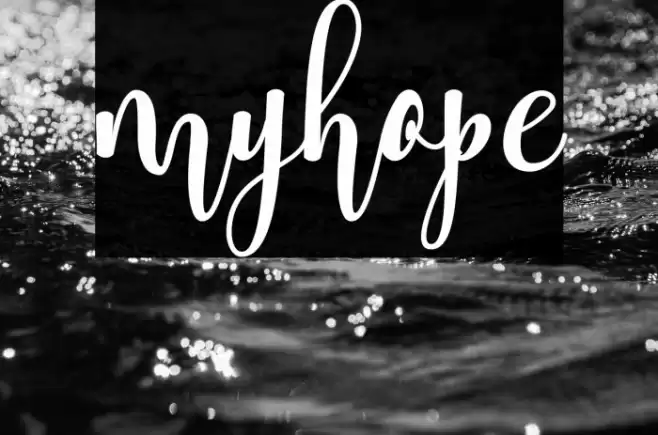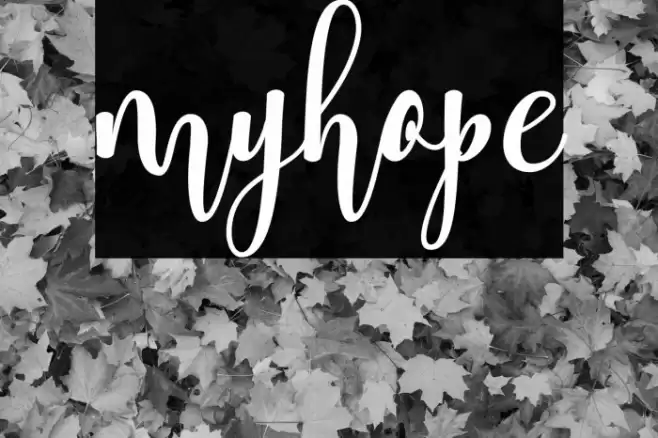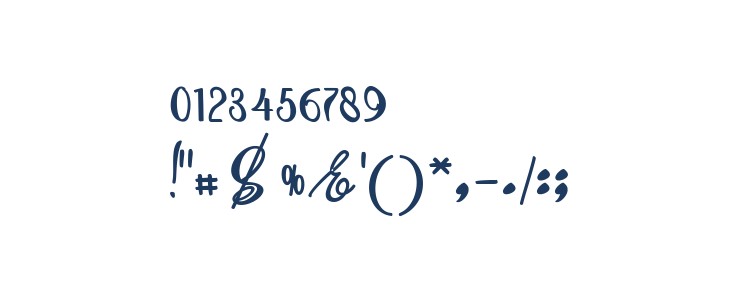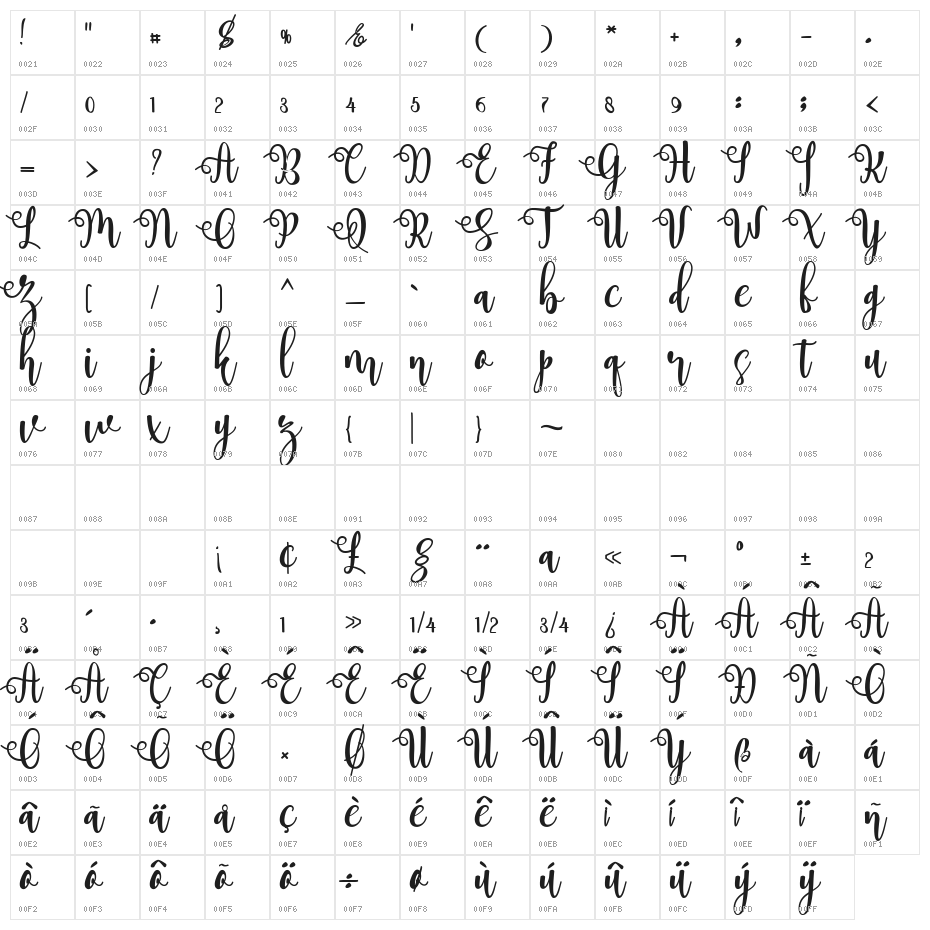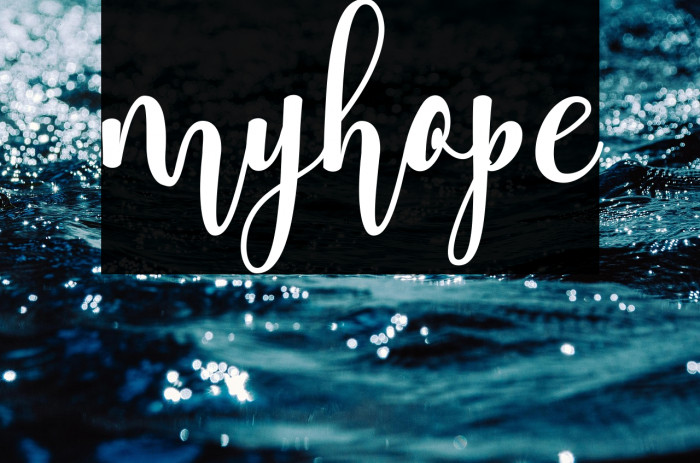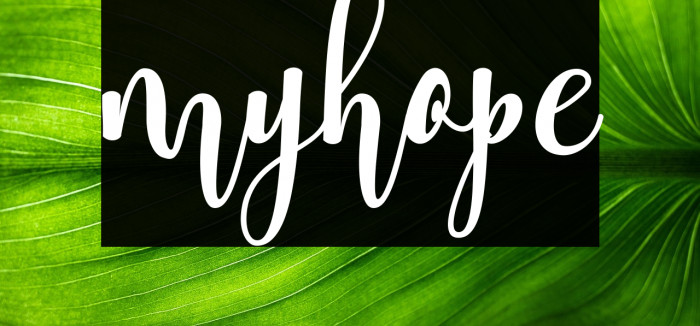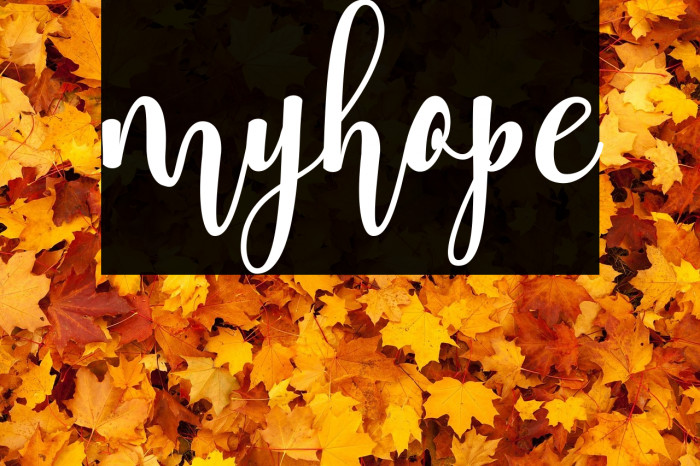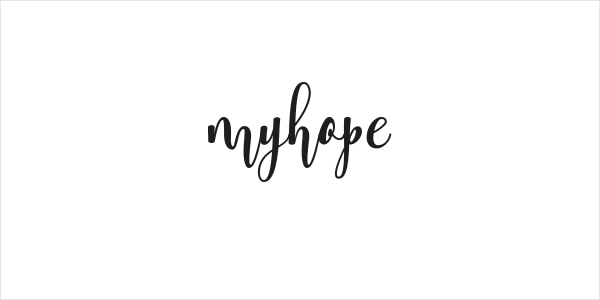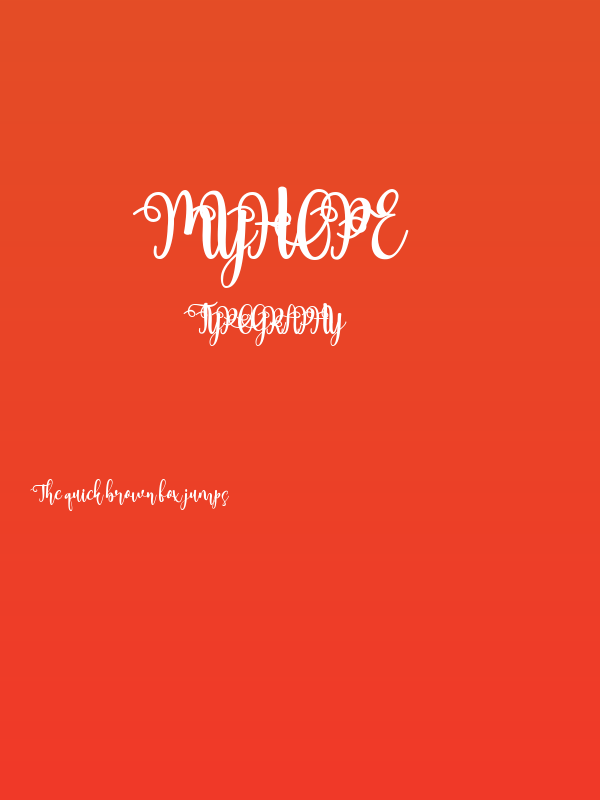
myhope Font
myhope Description
This font features an elegant and flowing script style, characterized by its cursive, handwritten appearance. The letters are interconnected with smooth, sweeping curves and loops, giving it a sophisticated and artistic flair. The uppercase letters are ornate and decorative, while the lowercase letters maintain a consistent fluidity. The numbers and special characters are designed to complement the overall style, maintaining the same graceful curves and loops. This font is ideal for projects that require a touch of elegance and creativity.
A flowing, cursive script font with elegant, interconnected letters from Regular fonts.
- Font: myhope
- No. of Characters:: 266
- Proposed Projects: Ideal for wedding invitations, greeting cards, branding, and logo design.
- Character Spacing: Tight
- Overall Style: Elegant, Artistic
- Use Case: Logos, Invitations, Decorative text